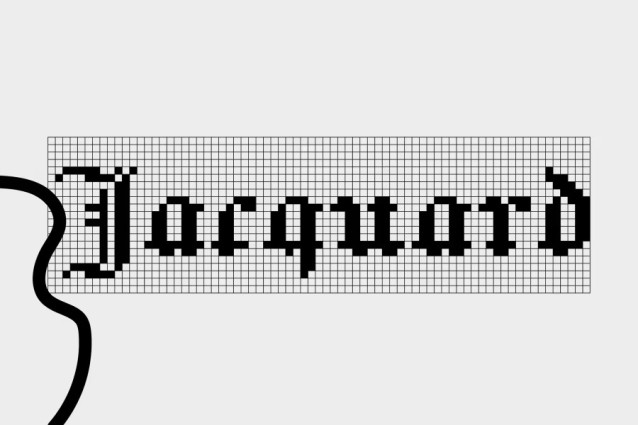
Jacquard Font
Jacquard Font is an expanded revival typeface from a Victorian needlepoint alphabet designed in Berlin by Heinrich Kuehn circa 1880.Soft Type is a collection of typefaces designed for knitting color-work. Each typeface has a “Regular” and “Charted” version and some include multiple scales so you can fit type on your knits, no matter the project’s size.
Designing typefaces for knitting is essentially the same as designing pixel type. However, in practice, the pixel size is determined by the properties of the yarn in use. Scale is determined by the weight of the yarn as well as the number of pixels that make up the height of each letter. In this collection, the number following the name of the typeface indicates the height of the capital letters for that typeface.
These typefaces were designed with machine knitting in mind, but could be used for hand knitting, needlework, bedazzling, or many other textile crafts.